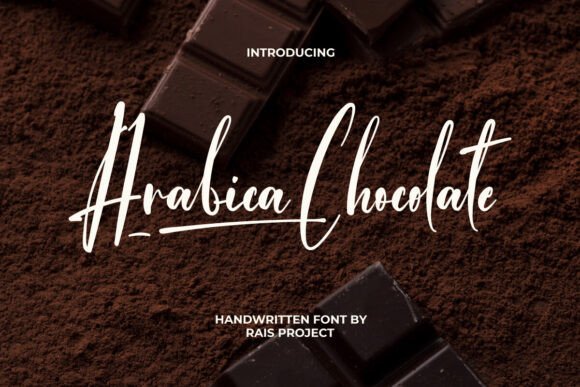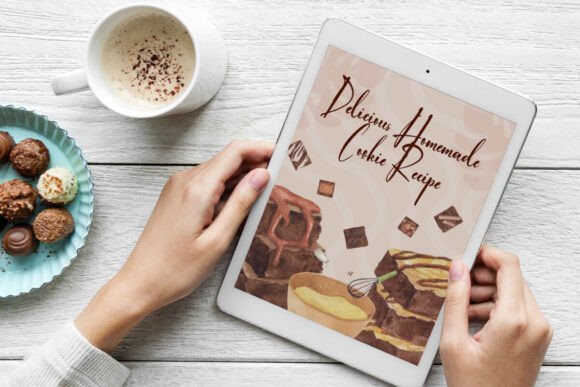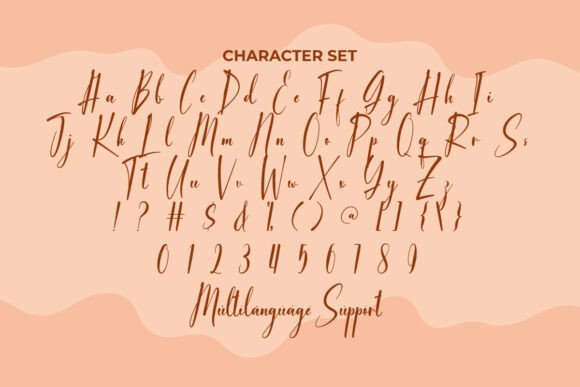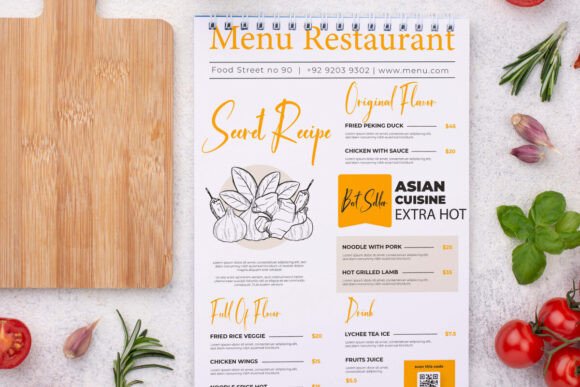
Arabica Chocolate Font
About the Arabica Chocolate Font
We are excited to introduce Arabica Chocolate Font, a must-have typeface for any serious designer. Arabica Chocolate Font is a beautiful handwritten font. This font has soft and neat lines that wave beautifully, and is still easy to read with small letters. This font has a lovely appearance, making it suitable for many industries, such as beauty products, café, cake shop, creative designer, event or wedding organizer, fashion, florist, homeware, photography, printing, publishing, restaurant, writer, and more!
Its soft, elegant personality makes Arabica Chocolate ideal for branding projects emphasizing quality and craftsmanship, particularly in the food and beverage, beauty, or wedding industries. Use it for logos, short headlines, packaging design, and invitations. Avoid using it for large blocks of text or website body copy; its handwritten nature is less legible at smaller sizes or in extended passages.
Pairing it with a clean sans-serif like Montserrat or a more geometric sans-serif like Futura will create a sophisticated contrast, balancing the hand-drawn warmth of Arabica Chocolate with a modern, professional edge. For a more playful approach, consider pairing it with a fun, rounded sans-serif. Avoid pairing it with other script fonts, as this could lead to visual confusion.
The font’s overall aesthetic leans towards a sophisticated yet approachable feel. Its gentle curves project a sense of warmth and trustworthiness, making it well-suited for brands that wish to convey a feeling of handmade quality and refined simplicity.
Arabica Chocolate Font Usage Examples
Arabica Chocolate Font Example